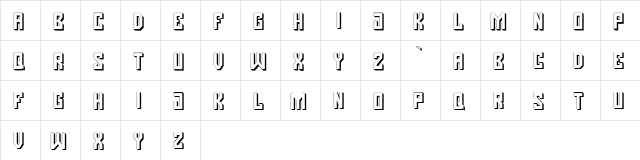
Pasatona Shadow Regular
Design Context for Pasatona Shadow Typeface
Pasatona Shadow is built around its visual character rather than neutral utility — its distinctive forms are designed to make an impression at display sizes.
Font Pairing: Pair with a clean neutral sans-serif for body copy to let Pasatona Shadow's character lead without overwhelming the composition.
Pro Tip: Use Pasatona Shadow exclusively at display sizes — it was designed to be seen, not read at length. Let a neutral companion handle body copy.